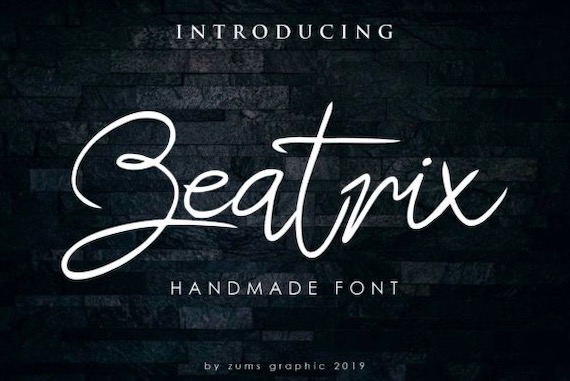
Beatrix Script Font is a natural handwritten script typeface that was created and shared by ZoomType Studio. It features unique and exciting characters. Make your design stand out from the crowd with this unique typeface.
Beatrix Handwritten Script Font